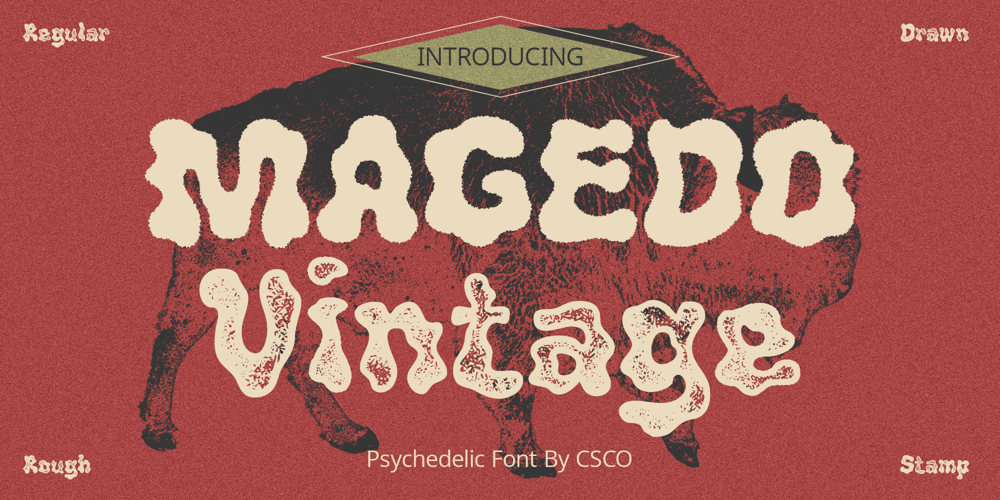
Magedo Font Family was designed by Trio Nazzar Saputra, Wahyu Hadi Yuana and published by Craft Supply Co. Magedo contains 5 styles and family package options. Introducing Magedo Vintage – Fluid FontLooking for a font that’s both fluid and exudes vintage charm? Look no further than Magedo Vintage – Fluid Font. This versatile typeface offers a blend of modern fluidity and classic vintage aesthetics display that will elevate your designs to the next level.Fluid EleganceMagedo Vintage boasts a fluidity that adds a touch of sophistication to your projects. Its smooth curves and flowing lines make it perfect for logos, headings, and invitations, creating a sense of dynamic movement that captures attention.Rustic Hand-Drawn AppealEmbrace the hand-drawn trend with Magedo Vintage. Its rustic, imperfect strokes give your text a unique character and a cozy, artisanal feel. Whether you’re designing a rustic wedding invitation or a quaint cafe menu, this font adds that charming touch.Timeless Stamp EffectMagedo Vintage also offers a stamp-like effect, reminiscent of classic imprints. This effect adds a sense of authenticity and nostalgia to your designs, making it ideal for vintage-themed posters, packaging, and labels.